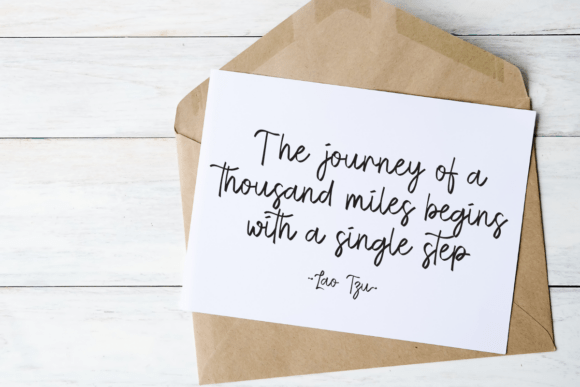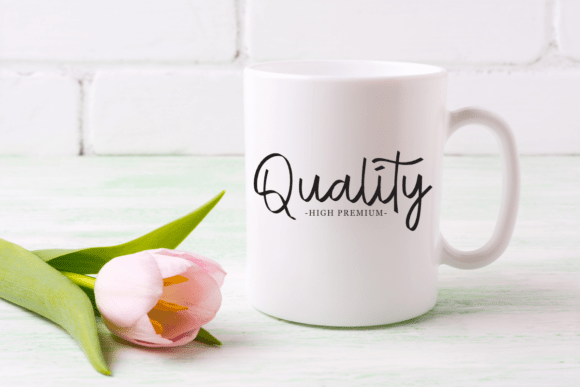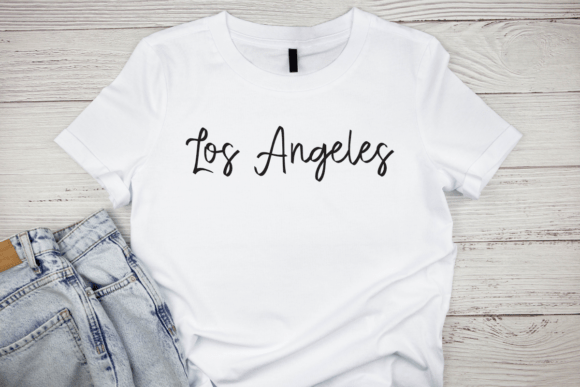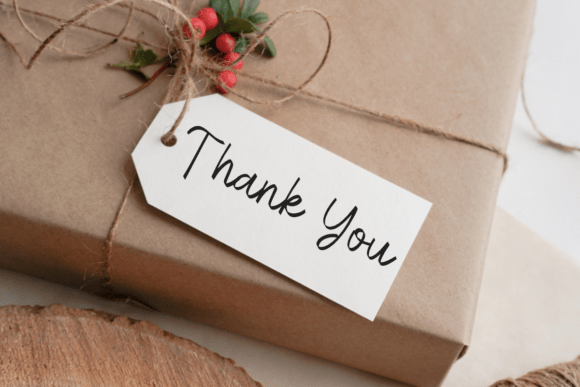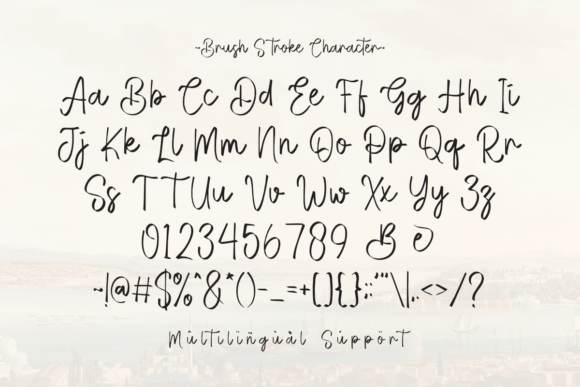
Introducing Brushstroke: The Elegant Handwritten Script Font for Your Design Needs
Are you looking for a font that adds a touch of sophistication and warmth to your designs? Look no further than Brushstroke, a modern handwritten script font that is perfect for a variety of creative projects. With its smooth lines and flowing curves, Brushstroke is ideal for designers and crafters who want to add a personal touch to their work.
What is Brushstroke Font?
Brushstroke is a carefully crafted handwritten script font that exudes elegance and charm. Its smooth lines and flowing curves give it a natural, effortless look that is perfect for a range of design applications. Whether you’re creating wedding invitations, nursery decor, greeting cards, or branding materials, Brushstroke is the perfect choice.
Key Features of Brushstroke Font
- Smooth Lines and Flowing Curves: Brushstroke’s smooth lines and flowing curves give it a natural, handwritten look that is both elegant and charming.
- Modern and Versatile: This font is perfect for a range of design applications, from wedding invitations to branding materials.
- Elegant and Warm: Brushstroke adds a touch of sophistication and warmth to any design, making it perfect for projects that require a personal touch.
Brushstroke is a versatile font that can be used for a range of design projects, including:
- Wedding Invitations: Add a touch of elegance and romance to your wedding invitations with Brushstroke.
- Nursery Decor: Create adorable and charming nursery decor with Brushstroke’s playful and whimsical look.
- Greeting Cards: Add a personal touch to your greeting cards with Brushstroke’s elegant and warm script.
- Branding: Use Brushstroke to create a unique and memorable brand identity that stands out from the crowd.
- Wall Art: Create beautiful and inspiring wall art with Brushstroke’s elegant and flowing script.
- Tumbler and Sticker Designs: Add a touch of personality to your tumbler and sticker designs with Brushstroke’s modern and versatile look.
- Cricut Projects: Use Brushstroke to create custom and personalized Cricut projects, such as vinyl decals and iron-on designs.
Why Choose Brushstroke Font?
There are many reasons why Brushstroke is the perfect font for your design needs. Here are just a few:
- Unique and Eye-Catching: Brushstroke’s elegant and warm script is sure to grab attention and make your designs stand out.
- Easy to Read: Despite its elegant look, Brushstroke is easy to read and understand, making it perfect for a range of design applications.
- Customizable: Brushstroke can be customized to fit your design needs, making it perfect for a range of creative projects.